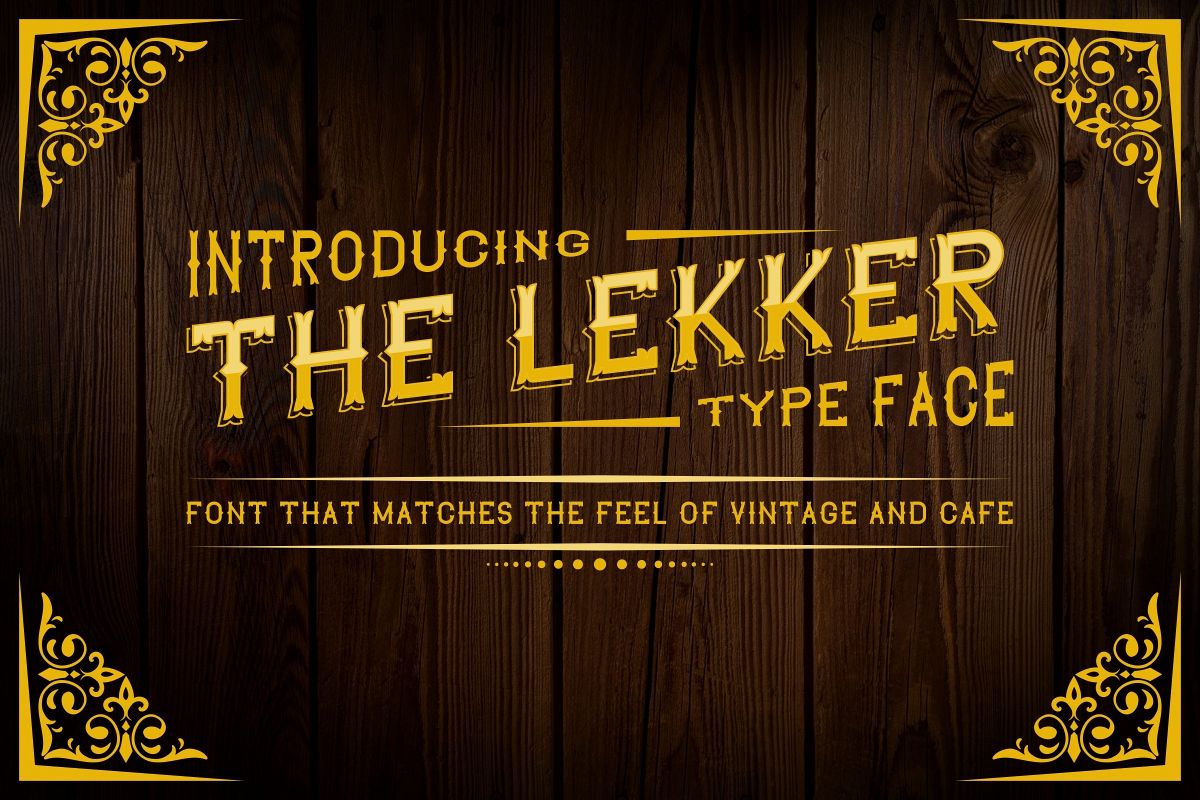
The Lekker
Hi Guys, It’s us again  Please meet : The Lekker Vintage Sans It’s a sans family font, but we better call it display font since it is better seen it as signage, header, banner, logo, stationery, letter head etcThe font will suit for cafe, music, restaurant etc as well as american country etcThis font will Work on PC & Mac with Simple installations. Accessible in the Adobe Illustrator, Adobe Photoshop, Adobe InDesign, even work on Microsoft Word. It’s also PUA Encoded Characters – Fully accessible without additional design software.